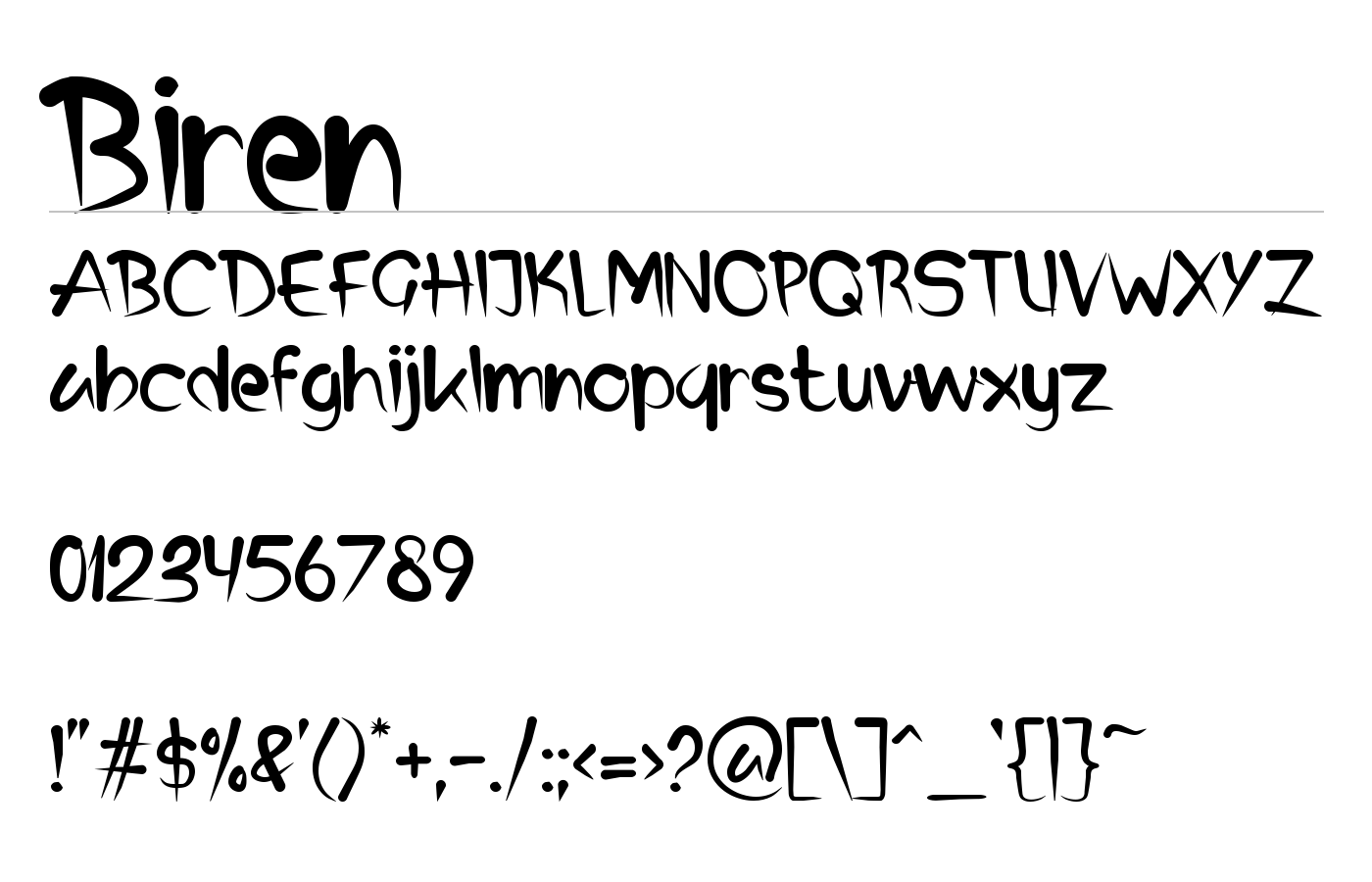
Biren is a playful and quirky handwritten sans serif font characterized by irregular stroke widths and slightly sharp, energetic terminals. With its tall, narrow letterforms and a mix of rounded and pointed shapes, it conveys a lively and informal personality well-suited for creative projects, casual branding, and eye-catching headlines. This font works great where a fun, approachable vibe is desired, especially in children's products, posters, and artistic designs.
Biren Font
About Biren Font